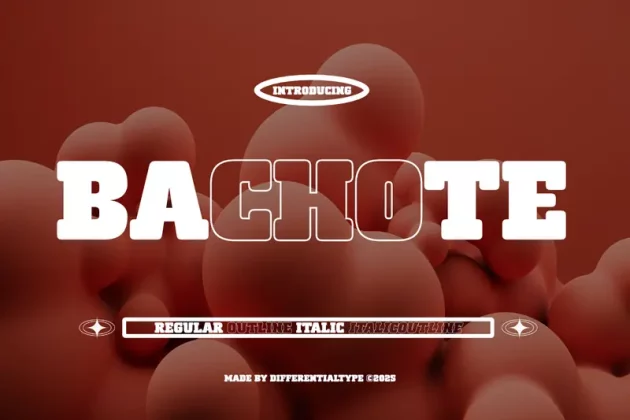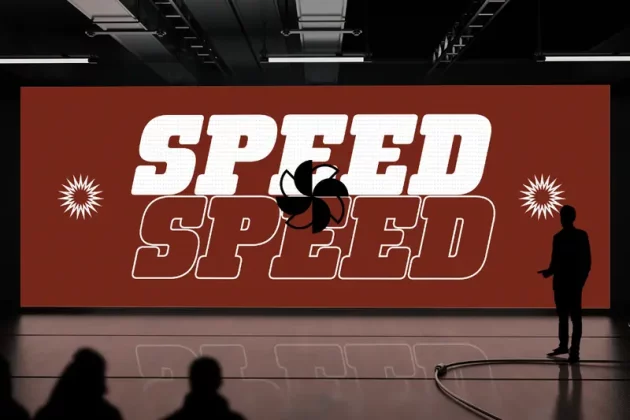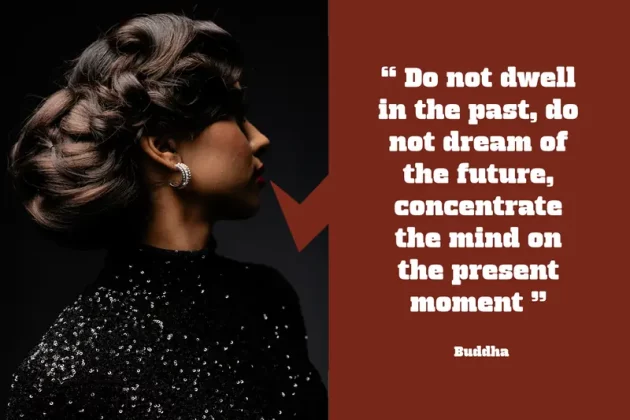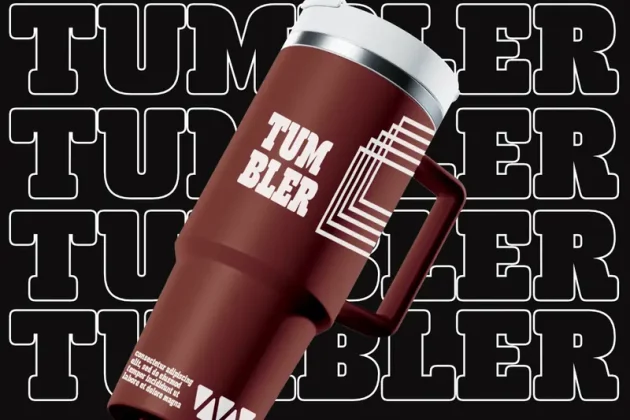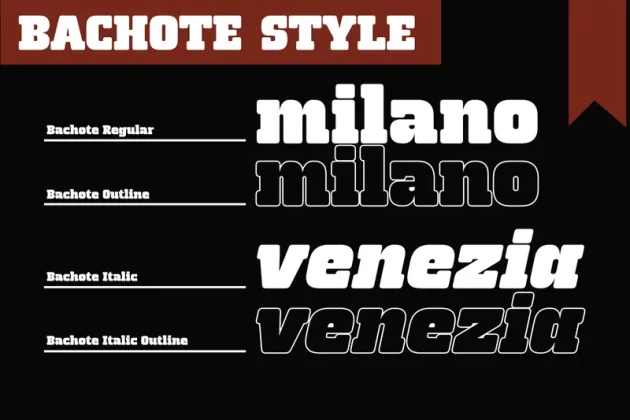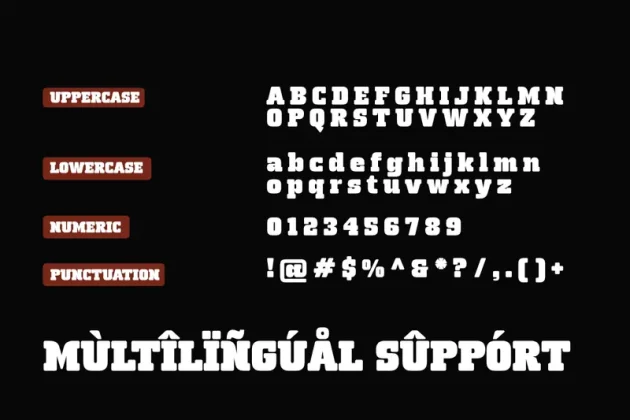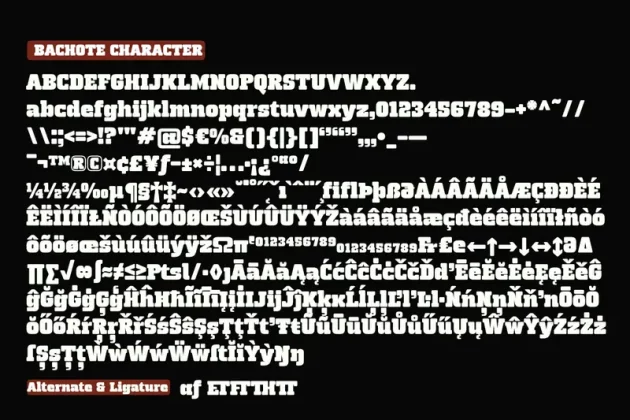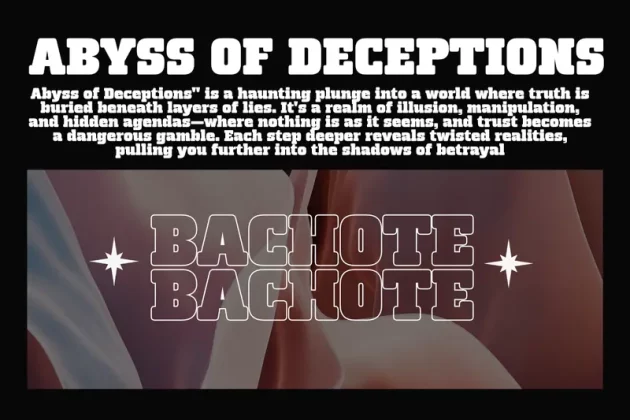
Bachote Font
About Bachote Font
Bachote is a bold slab font designed specifically for display purposes, ensuring a strong and commanding presence in any design. With its thick, assertive letterforms, Bachote is the perfect choice for posters, product branding, headlines, logos, book titles, and covers. Its powerful structure creates a striking contrast, making text stand out while reinforcing the intended message. Whether used in print or digital media, Bachote guarantees a captivating and authoritative visual impact that cannot be overlooked.
This font offers four distinct styles—regular, italic, outline, italic outline—providing designers with the versatility to experiment and adapt to various creative projects. The combination of weight and precision makes Bachote an ideal tool for those looking to establish a strong visual identity with confidence and style. Whether you’re designing for high-impact branding or eye-catching promotional materials, Bachote delivers a bold yet refined aesthetic that leaves a lasting impression.